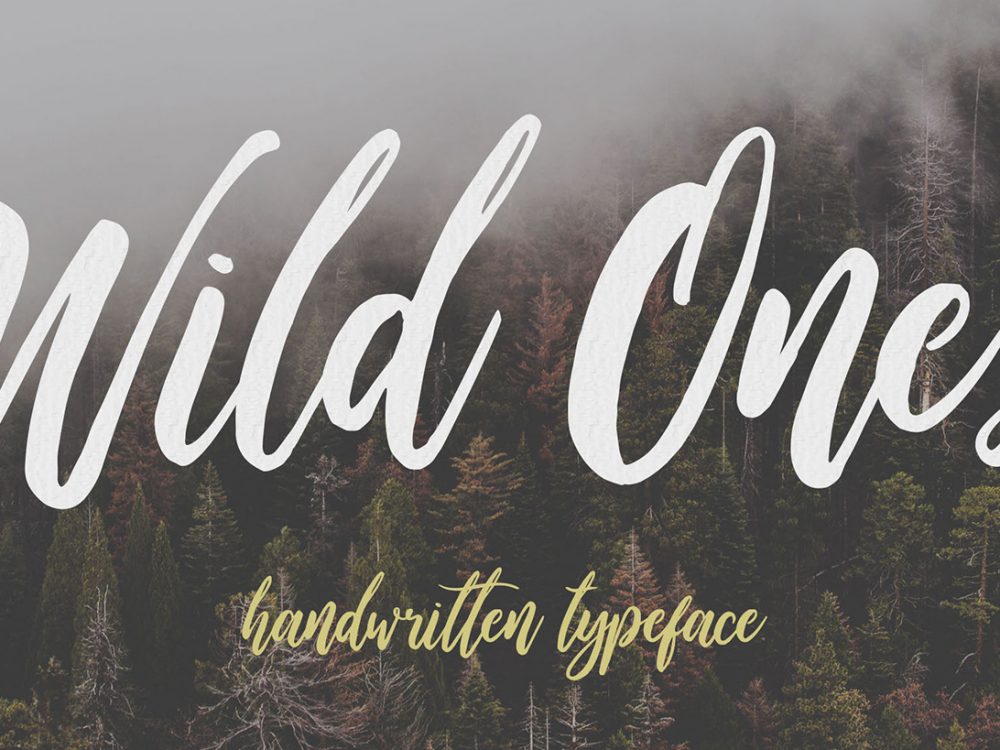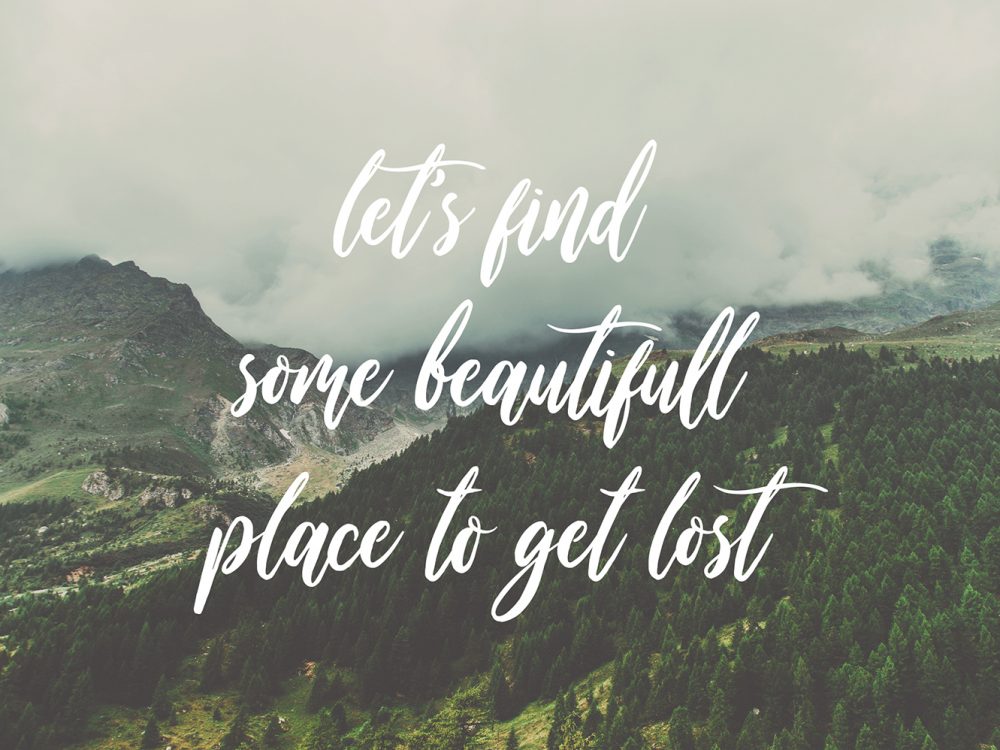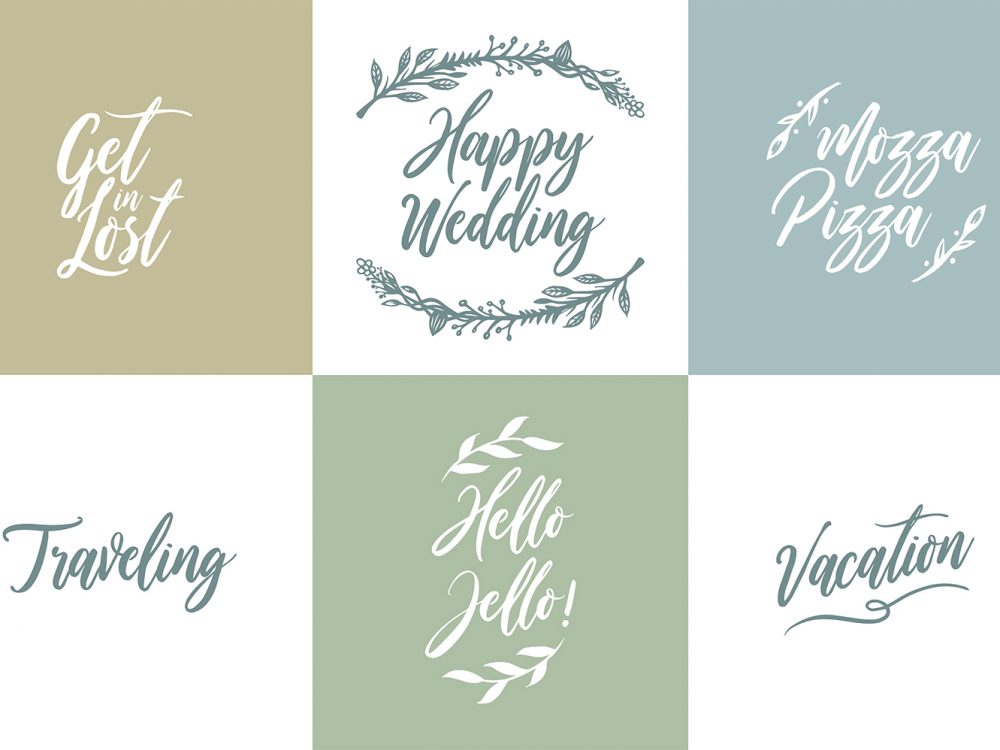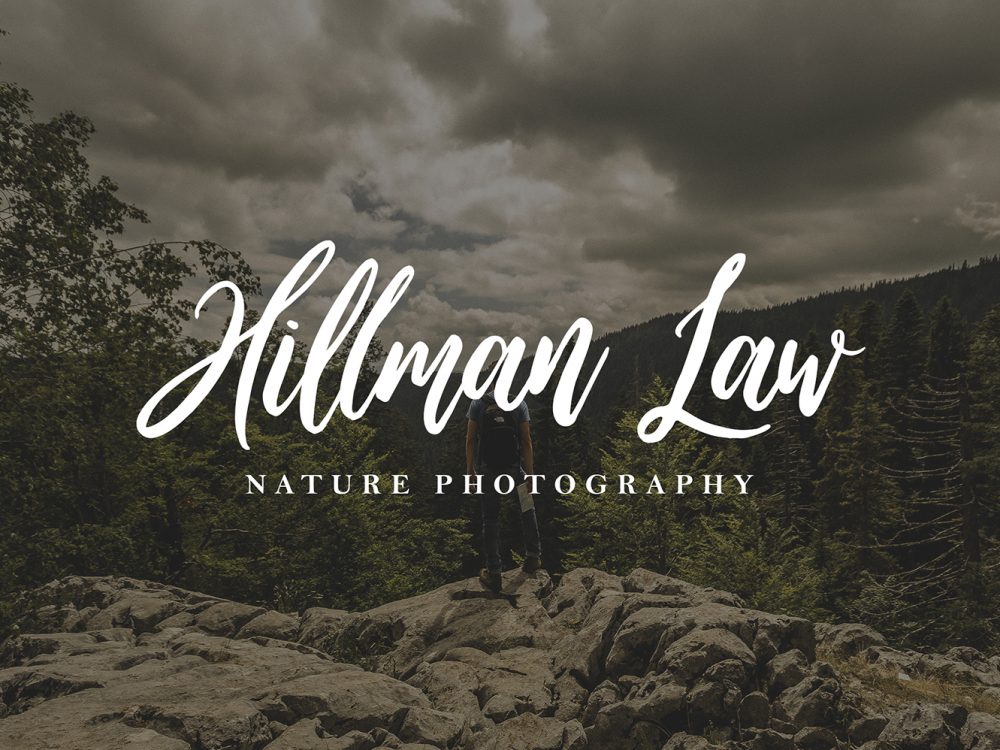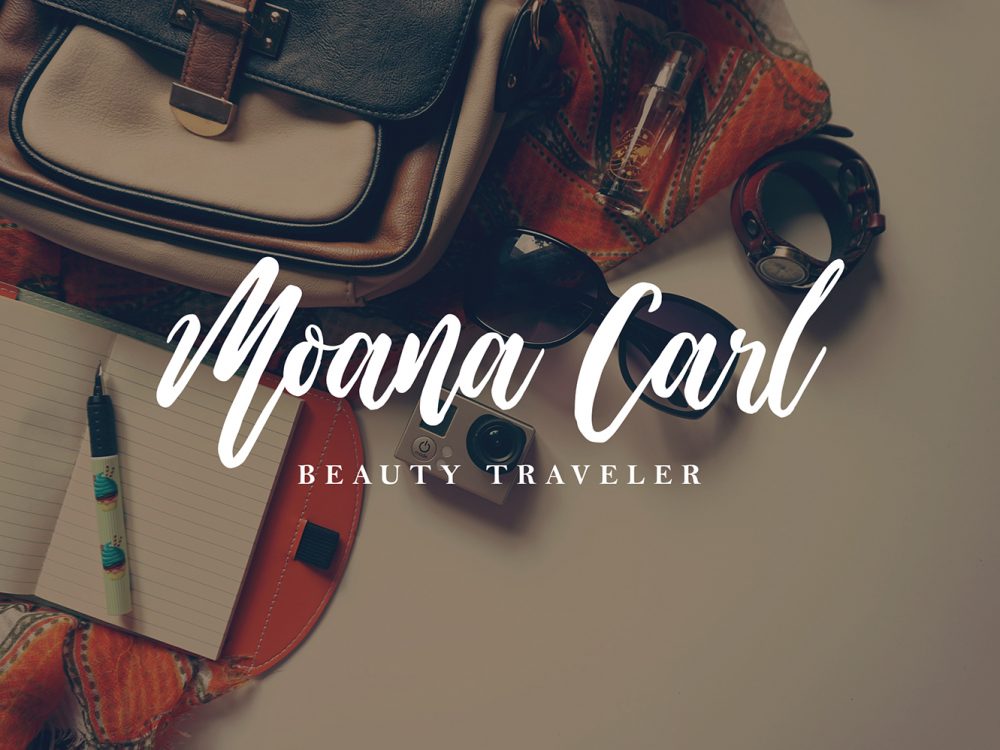
Wild Ones Free Demo Font
Wild Ones Free Demo Font is an interesting modern handwritten typeface with elegant style and thin lines. This font is perfect for a variety of design projects that need an elegant handwritten font. Use this font to create posters, wedding invitations, cards, branding, flyers, prints, and more. If you like this font after trying it, make sure to also check its full version.